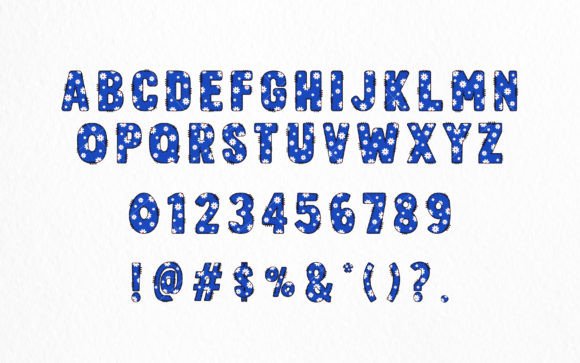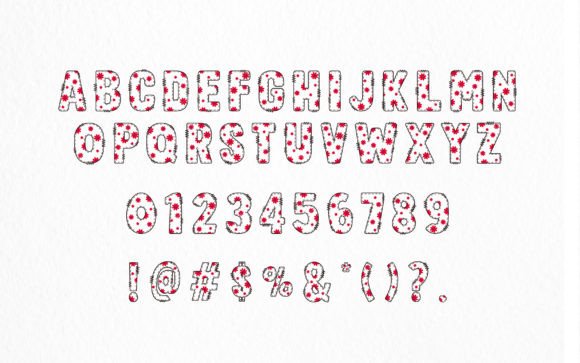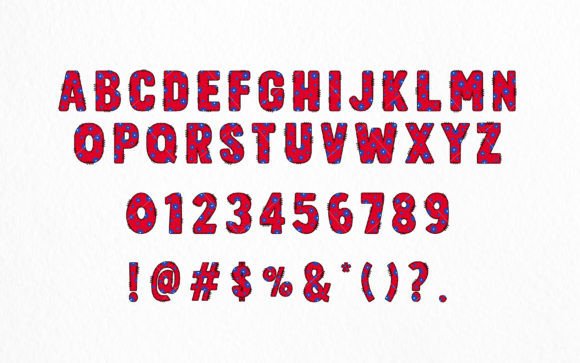
Introduction to Daisy Army Font
Unveil the vibrant spirit of patriotic celebrations with Daisy Font.
Resplendent in the colors of the American flag, this font enriches the atmosphere of any Independence Day event Ideal for adding a sparkling touch to your festivities, Daisy Font blends tradition and style to infuse your ceremony with a sense of unity and national pride.
Daisy Army Font offers exceptional quality and versatility, making it a valuable addition to your design toolkit. Whether you’re creating for personal projects or commercial use, Daisy Army Font delivers professional results.